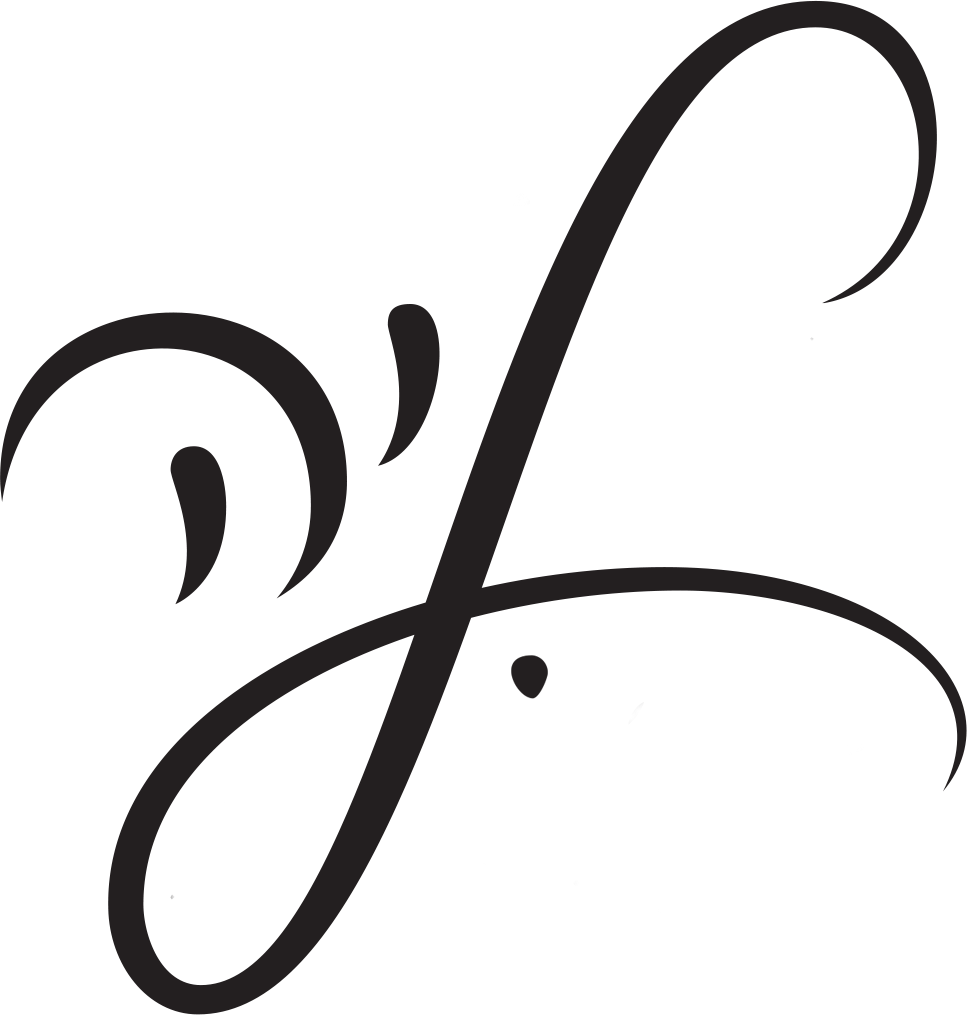
Calligraphy artist and Hebrew type designer. Every font I create starts with a hand-drawn sketch, real calligraphy, and the belief that letters have a soul.
I'm Lia Baratz, a calligraphy artist, Hebrew type designer, and visual artist from Israel. The Hebrew letter has always felt alive to me - not just a graphic shape, but memory, emotion, movement, and story.
Through Lia Fonts I create Hebrew fonts that blend traditional calligraphy with contemporary typography - fonts with character, presence, and a human feel.
I grew up between worlds - religious tradition on one side, modern visual culture on the other. Over the years I've created fonts and lettering for branding projects, books, memorials, and wedding designs.
My work has been shown in exhibitions, typography communities, and Judaica projects.
Letters are never just letters - they carry memory, identity, and soul.
It never starts in software. It starts with a feeling - what emotion should this word evoke? Only then comes the shape.
The Hebrew letters come before the Latin ones. I design them as the original work, not as a translation.
A geometrically perfect font isn't necessarily a good one. A font with soul - always.
It all began with a single calligraphy workshop with Shiri Lantzer in Pardes Hanna. I had dreamed about that workshop for months. At the time I was working full-time for minimum wage at an advertising agency, in the heart of one of Tel Aviv's loudest, most crowded neighborhoods, looking for a way into the world of calligraphy that was already burning inside me. The first time I tried it, I fell in love instantly. From there I went on to a six-month course, and later studied with some of the field's leading artists and designers - among them the international Japanese calligraphy master Kazuo Ishii, as well as Oded Ezer, Dani HaTayas, Yoram Kaplan, Aviv Malki, and others.
With Juliette, the first calligraphic font I created by hand. Commissions from studios and private brands, and magazine features.
Two years of work for different studios - and alongside them, hundreds of font sketches that never saw the light.
43 Hebrew fonts, hundreds of customers, and one idea that won't quit: letters have something to tell.